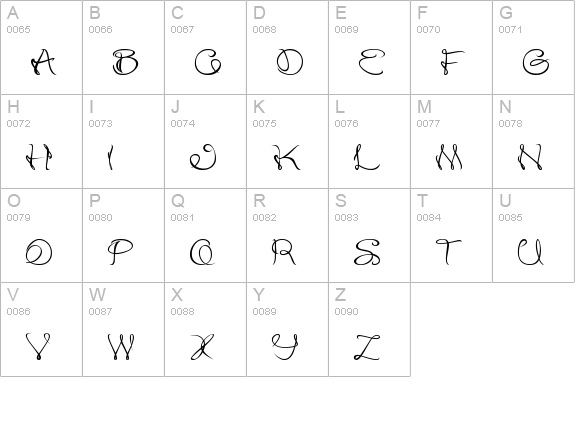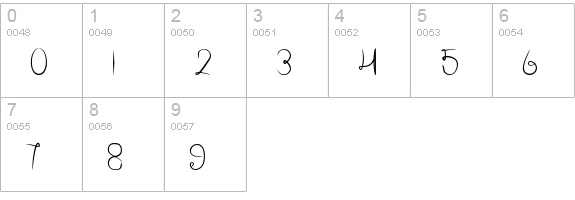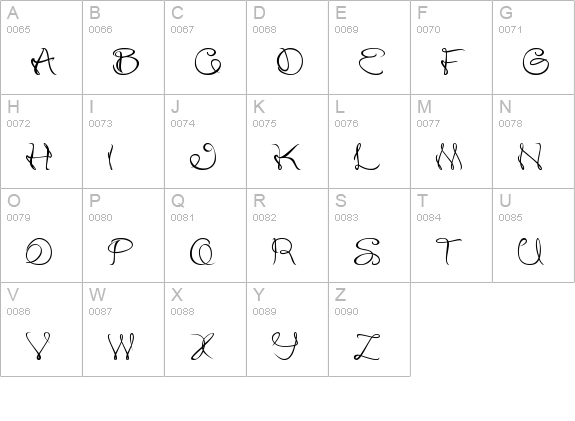
Flower In The Window font is a whimsical and elegant typeface that will add a touch of charm to your designs. With its delicate curves and intricate details, this font is perfect for projects that require a feminine and artistic feel. The flowing lines and playful style of Flower In The Window font make it a versatile choice for various design projects, whether you're creating invitations, greeting cards, or branding materials. Best of all, Flower In The Window font is available for free download at FontsMarket.com. This means you can easily access this beautiful font and use it in your projects without any cost. Don't miss out on the opportunity to add a unique and eye-catching element to your designs with Flower In The Window font, available for free at FontsMarket.com.